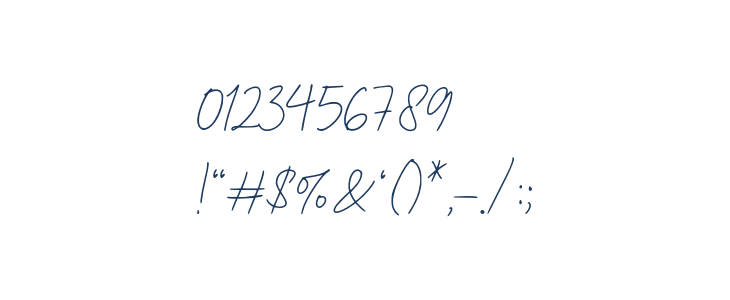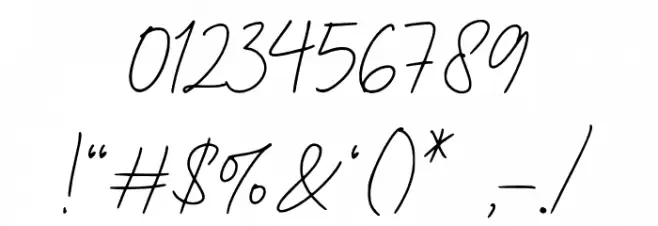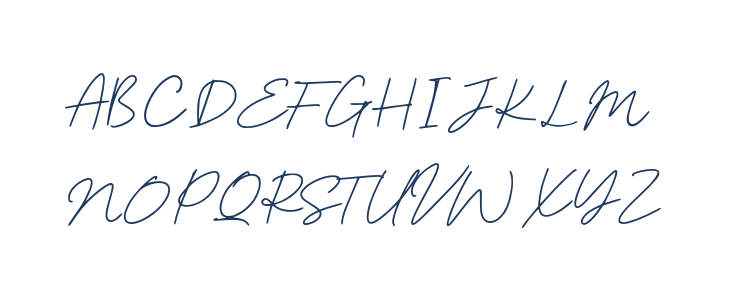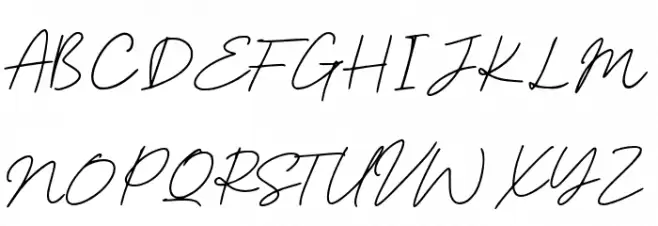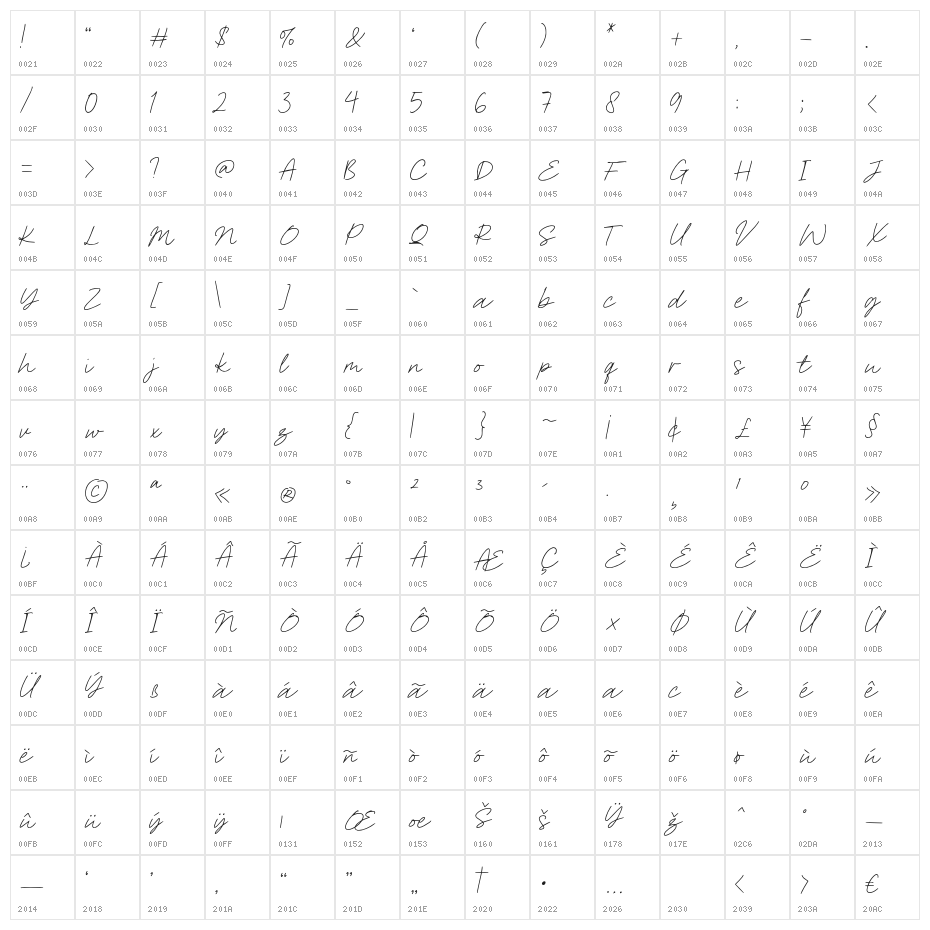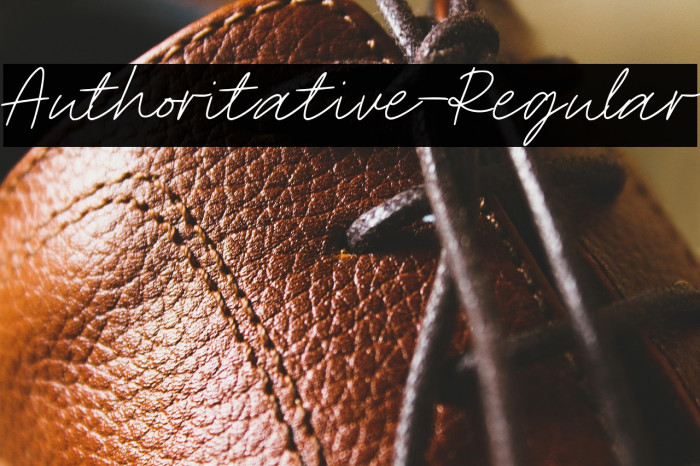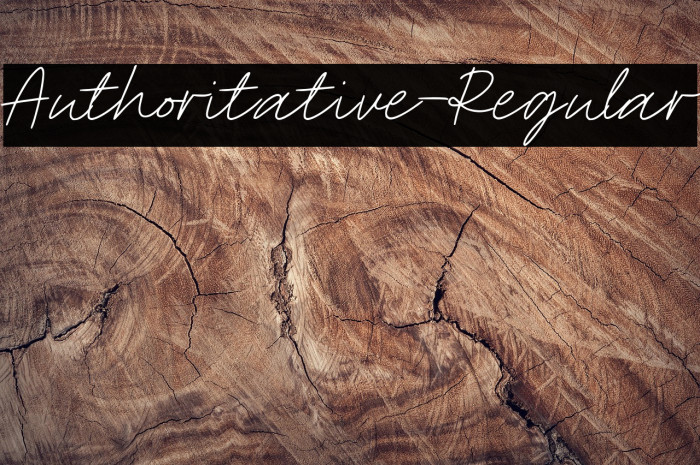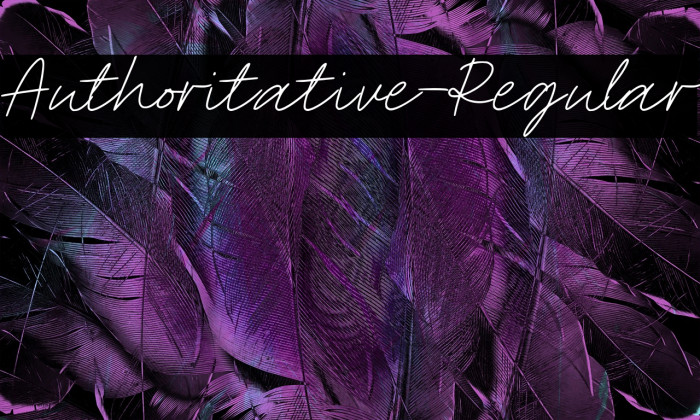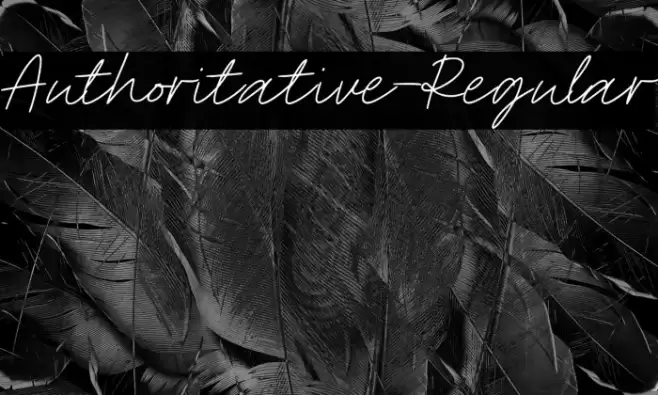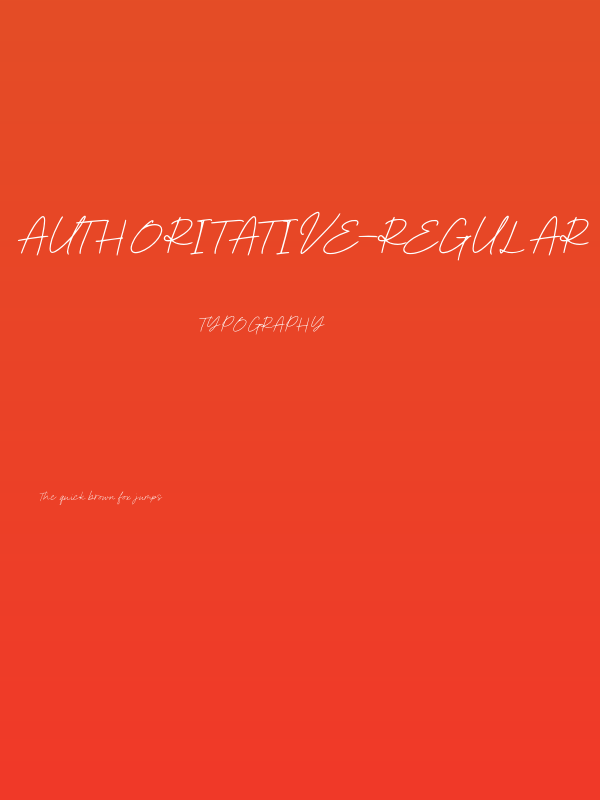
Authoritative-Regular Font
Authoritative-Regular Description
A casual, flowing handwritten script with natural, slightly irregular letterforms and a monolinear stroke, evoking the look of quick, confident penmanship.
| Overall Style | Casual, Modern, Handwritten |
| Use Case | Logos, Quotes, Invitations, Personal notes |
| Proposed Projects | Personal branding, invitations, greeting cards, quotes, social media graphics. |